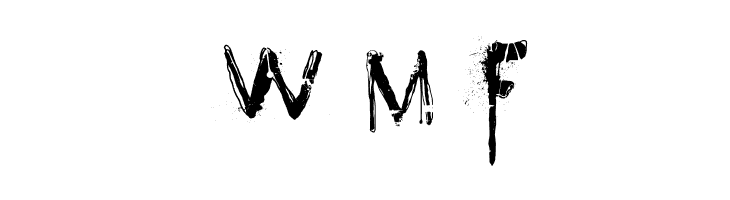
( Fonts by David Kerkhoff - www.hanodedphotography.com )
A bold, gritty font with splattered, distressed strokes and a chaotic artistic vibe.
( Fonts by David Kerkhoff - www.hanodedphotography.com )
A playful, casual handwritten font with irregular strokes and a lively appearance.
( Fonts by David Kerkhoff - www.hanodedphotography.com )
A bold, hand-drawn font with a rugged and artistic style.
( Fonts by David Kerkhoff - www.hanodedphotography.com )
A playful, rounded font with a bold and friendly appearance.
( Fonts by David Kerkhoff - www.hanodedphotography.com )
A distressed, grungy font with splatter and drip effects for an edgy look.
( Fonts by David Kerkhoff - www.hanodedphotography.com )
A playful, hand-drawn font with a whimsical and dynamic style.
( Fonts by David Kerkhoff - www.hanodedphotography.com )
A playful and whimsical font with unique decorative elements.
( Fonts by David Kerkhoff - www.hanodedphotography.com )
A hand-drawn, playful font with irregular strokes and a whimsical character.
( Fonts by David Kerkhoff - www.hanodedphotography.com )
A runic-inspired font with angular, geometric shapes and a bold, uniform appearance.
( Fonts by David Kerkhoff - www.hanodedphotography.com )
A lively, expressive handwritten font with dynamic strokes.
Recent favorites include Nyctophobia, DKHuginnAndMuninn, Promenadenmischung, DKHighTea and Windshield Massacre Condensed. They balance clarity and personality, working well for tech brands, editorial layouts, and social visuals.